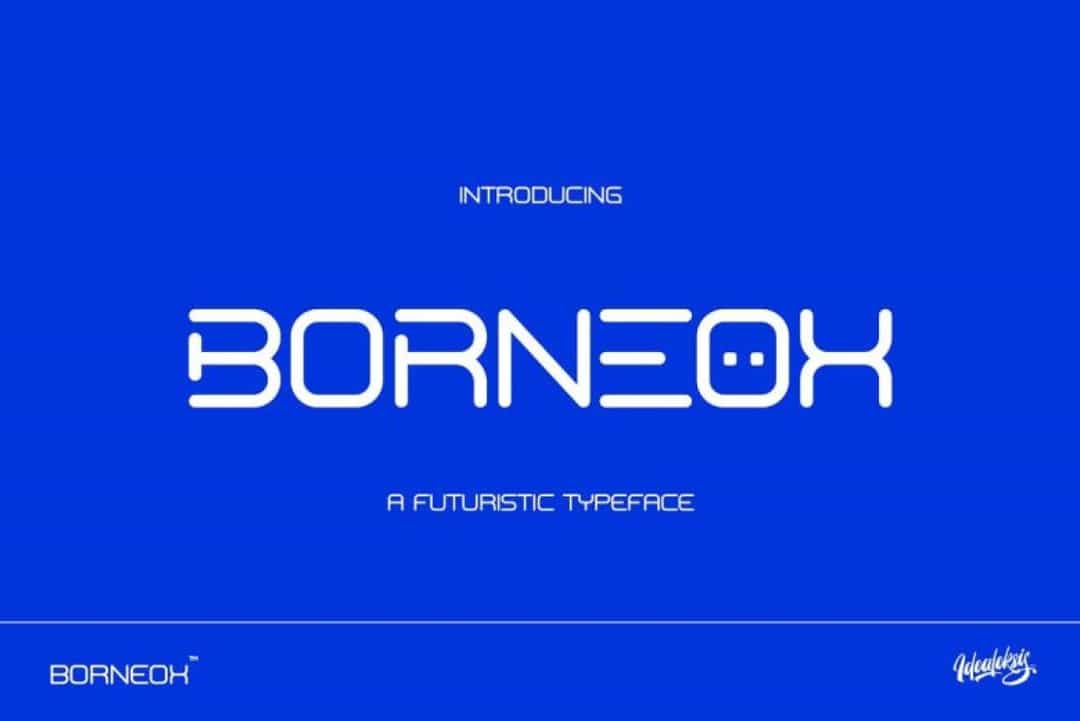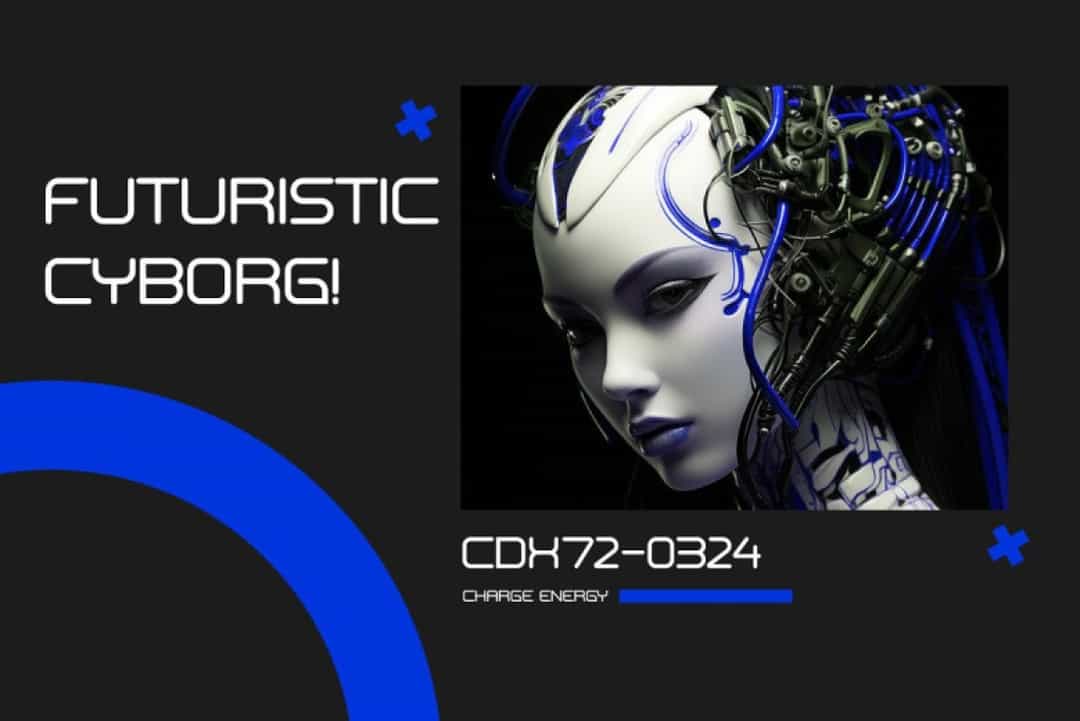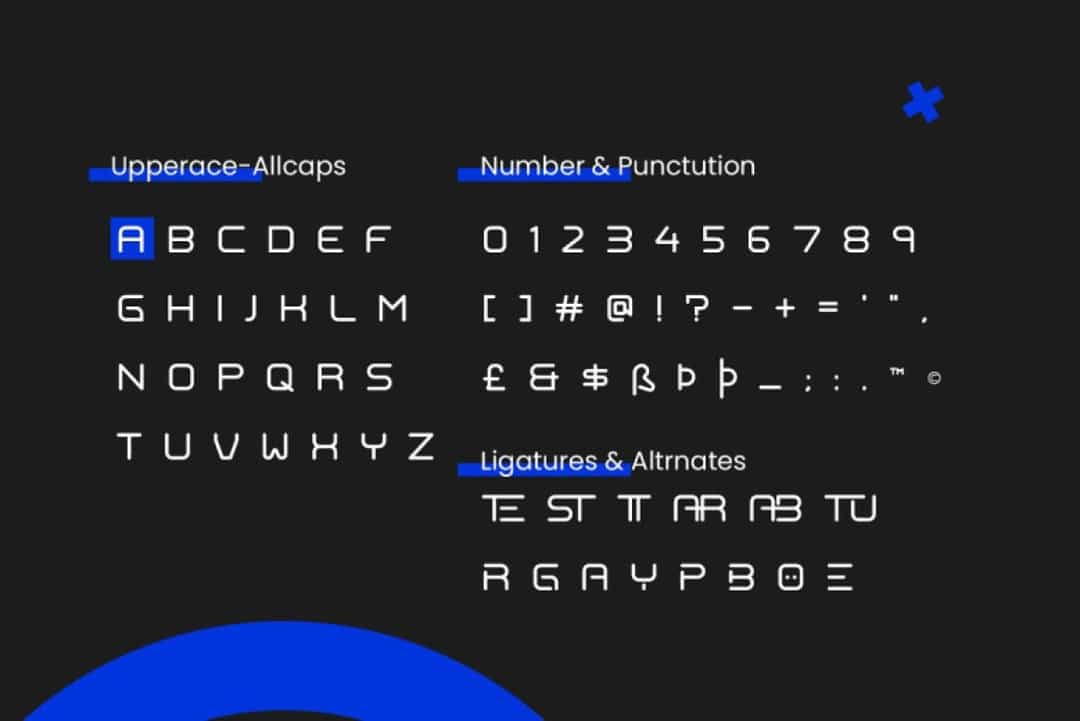
BORNEOX FUTURISTIC FONT ” is an uni-display font combining monoline elements with an edgy design. Boasting its distinctive and original characteristics, this font adds an unsettlingly modern sense to your designs.